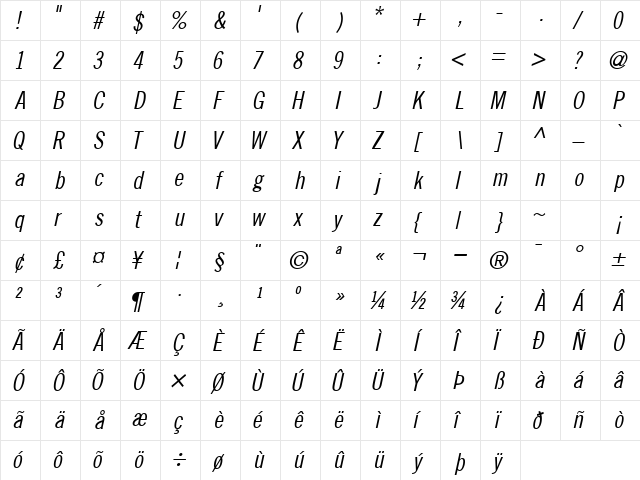
CommerceCondSSK Italic Font Preview
Design Context for CommerceCondSSK Typeface
CommerceCondSSK takes a measured approach to typography — its balanced proportions and neutral character make it a reliable workhorse for both digital and print work. Its italic angle brings a sense of urgency and motion to the letterforms. The condensed width makes it efficient for tight spaces without sacrificing legibility.
Pro Tip: Try CommerceCondSSK for annotation and caption copy alongside an upright companion — the contrast in angle creates a dynamic but ordered typographic system.